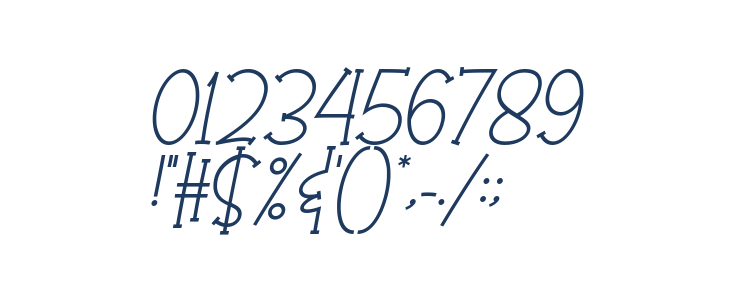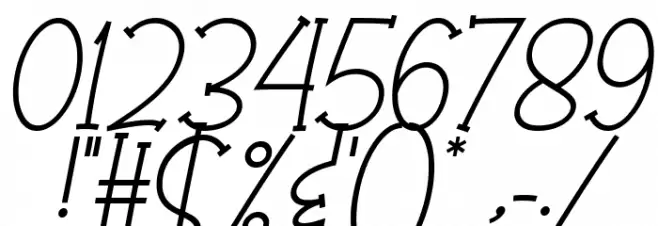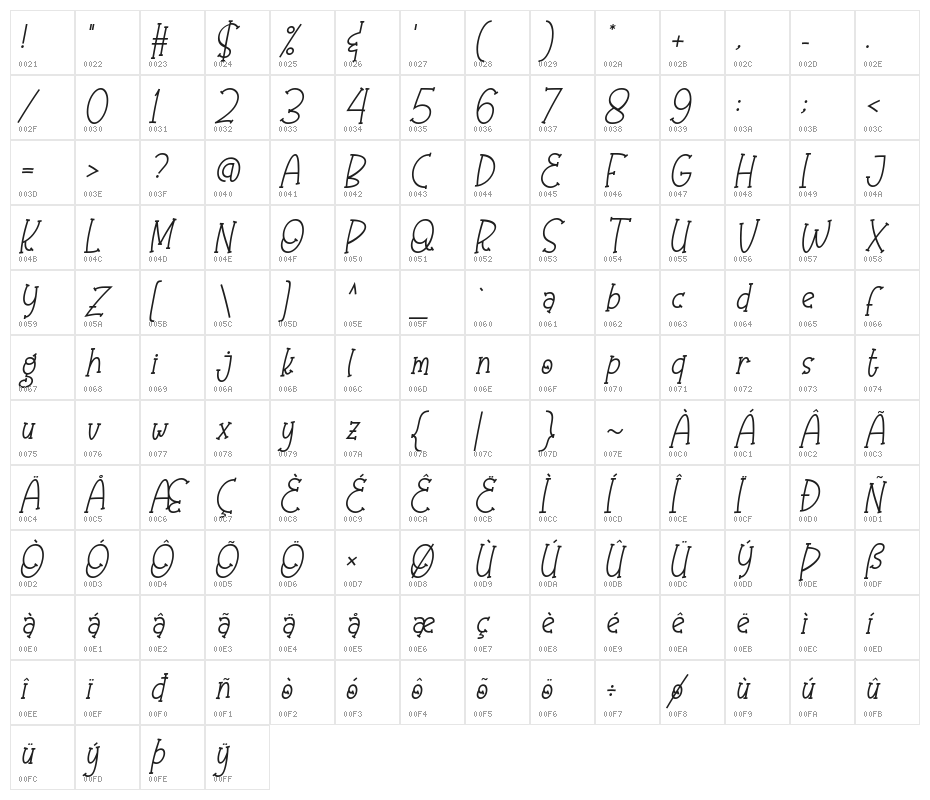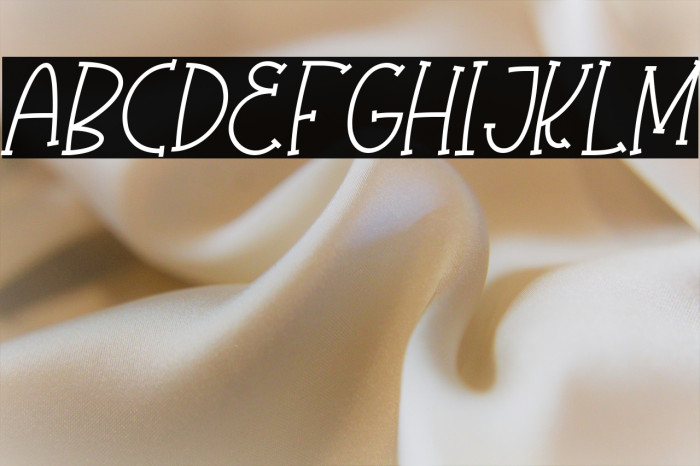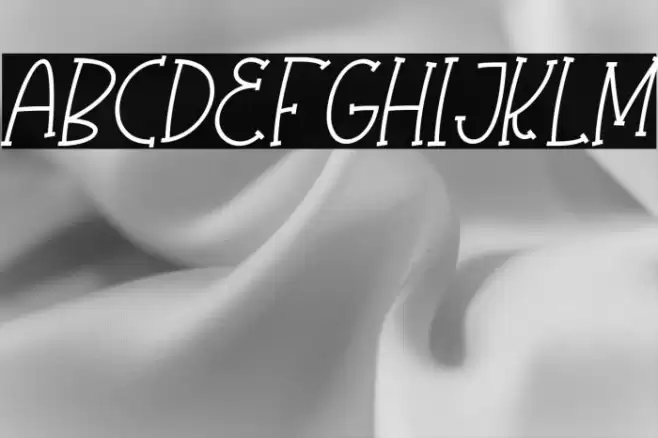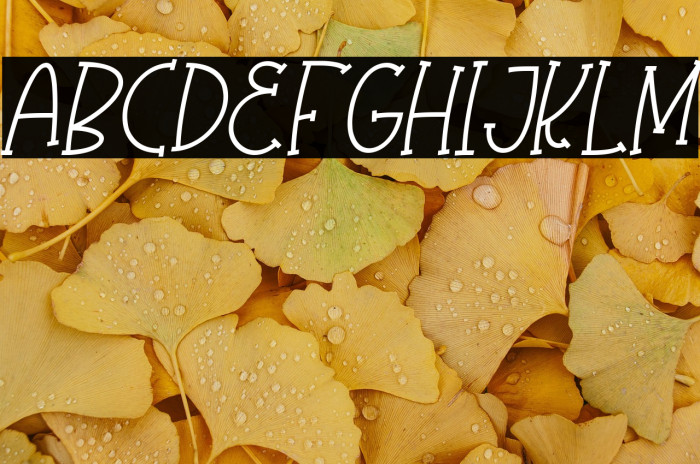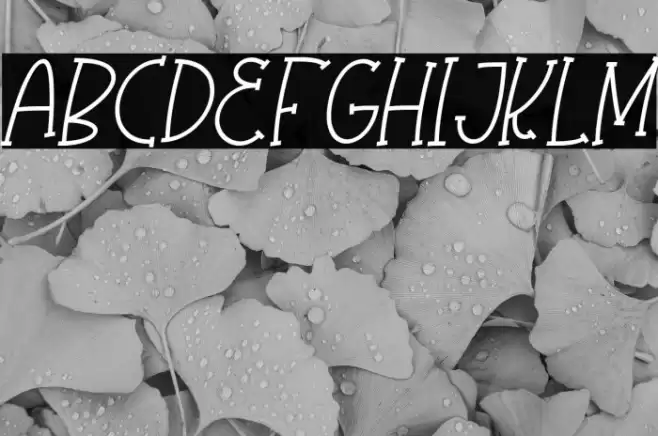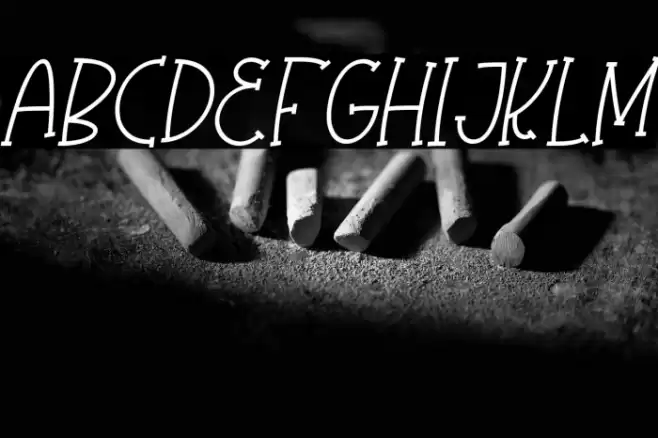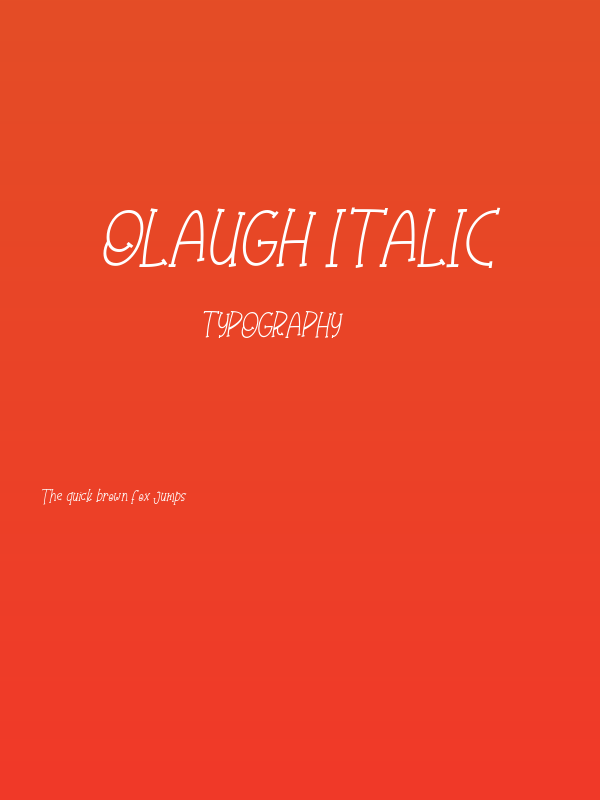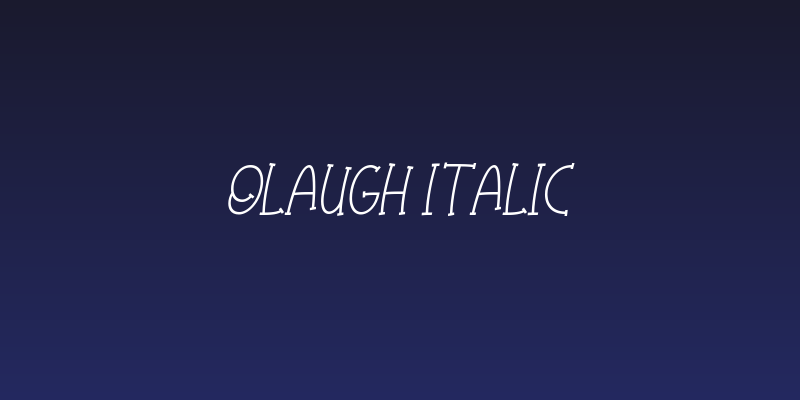
Olaugh Italic Font
Olaugh Italic Description
This font features a playful and whimsical design with a handwritten feel. The characters are slightly slanted, giving an italic appearance that adds a dynamic and lively touch to the text. The strokes are smooth and flowing, with a consistent thickness that maintains readability while adding a touch of elegance. The uppercase letters are bold and prominent, while the lowercase letters have a charming, casual style. Numbers and special characters are well-integrated, maintaining the overall aesthetic. This font is ideal for projects that require a personal, friendly, and approachable look.
| Proposed Projects | Greeting cards, invitations, children's books, casual branding, and social media graphics. |